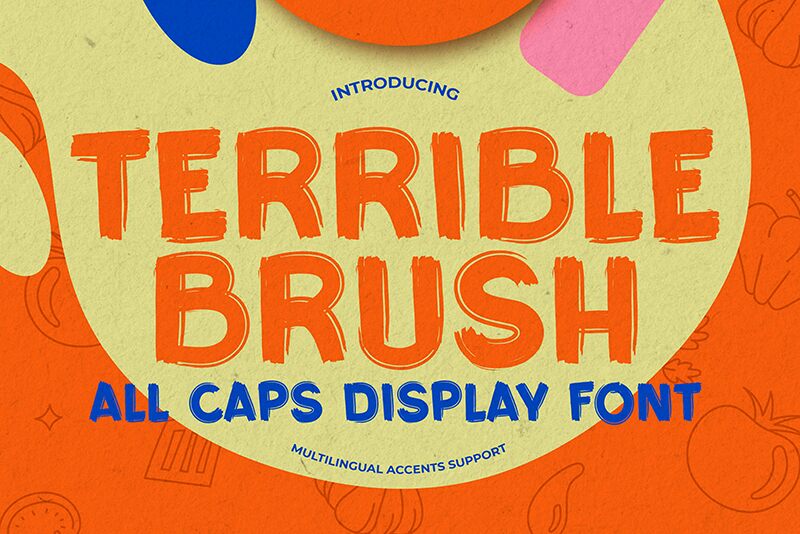
Terrible Brush by Gassstype is a semi-light, all-caps brush font that exudes modern style with a dramatic flair. Crafted to mimic the swift strokes of hand-drawn artistry, this font brings an authentic and relaxed charm to every design it graces. Each letter boasts a distinctive natural touch, making Terrible Brush an impeccable choice for projects that demand an organic feel with a touch of elegance.
Whether it's creating an inviting logo, designing eye-catching book covers, or enhancing craft projects, Terrible Brush infuses your work with its beautifully imperfect character. Its suitability for photography overlays and scrapbooking makes it the go-to font for adding personality to visual narratives. Imagine the possibilities as you elevate signs, window art, and tags with this versatile display font-Terrible Brush is your key to unlocking a world where each detail resonates with life and creativity.